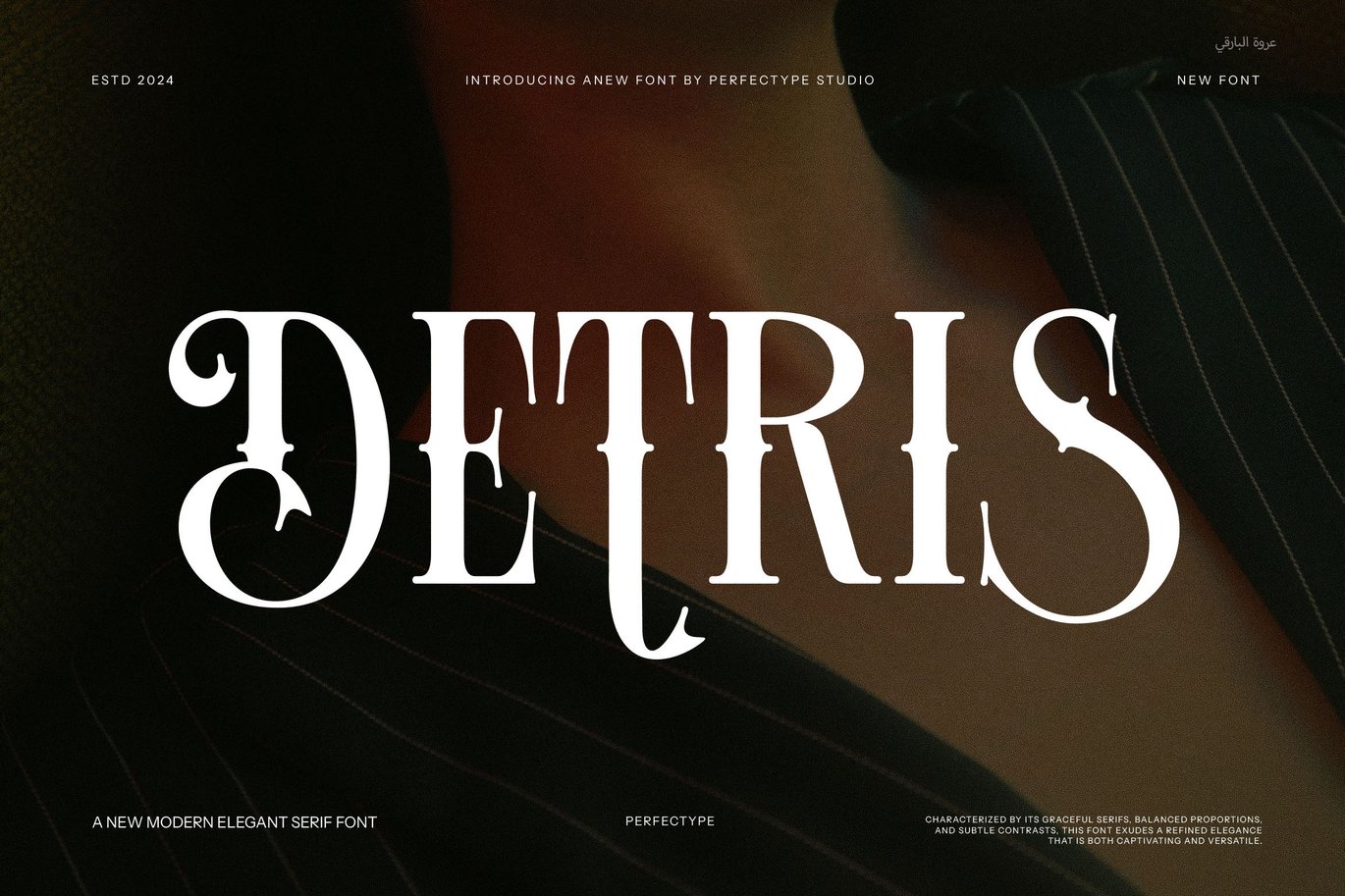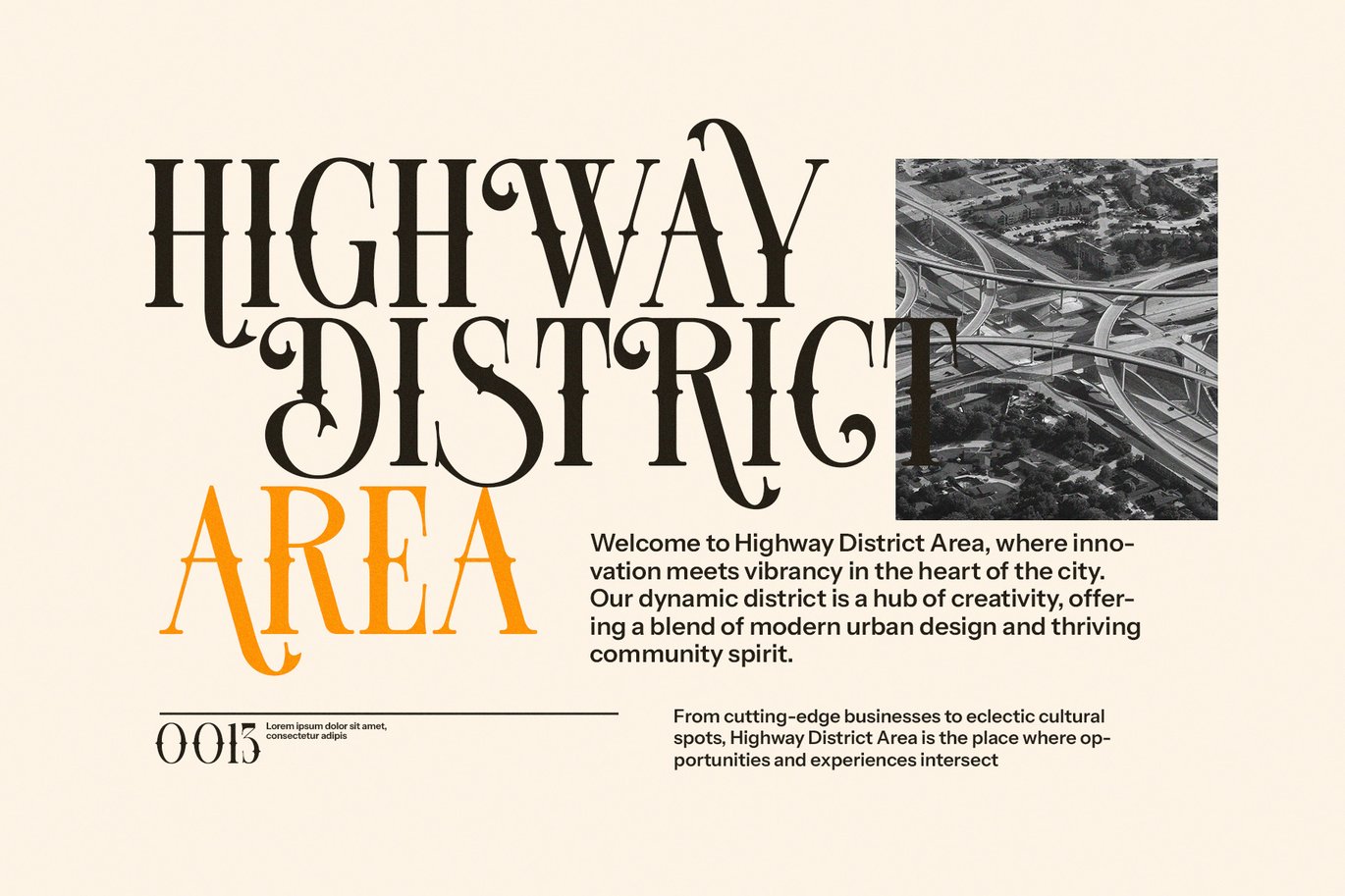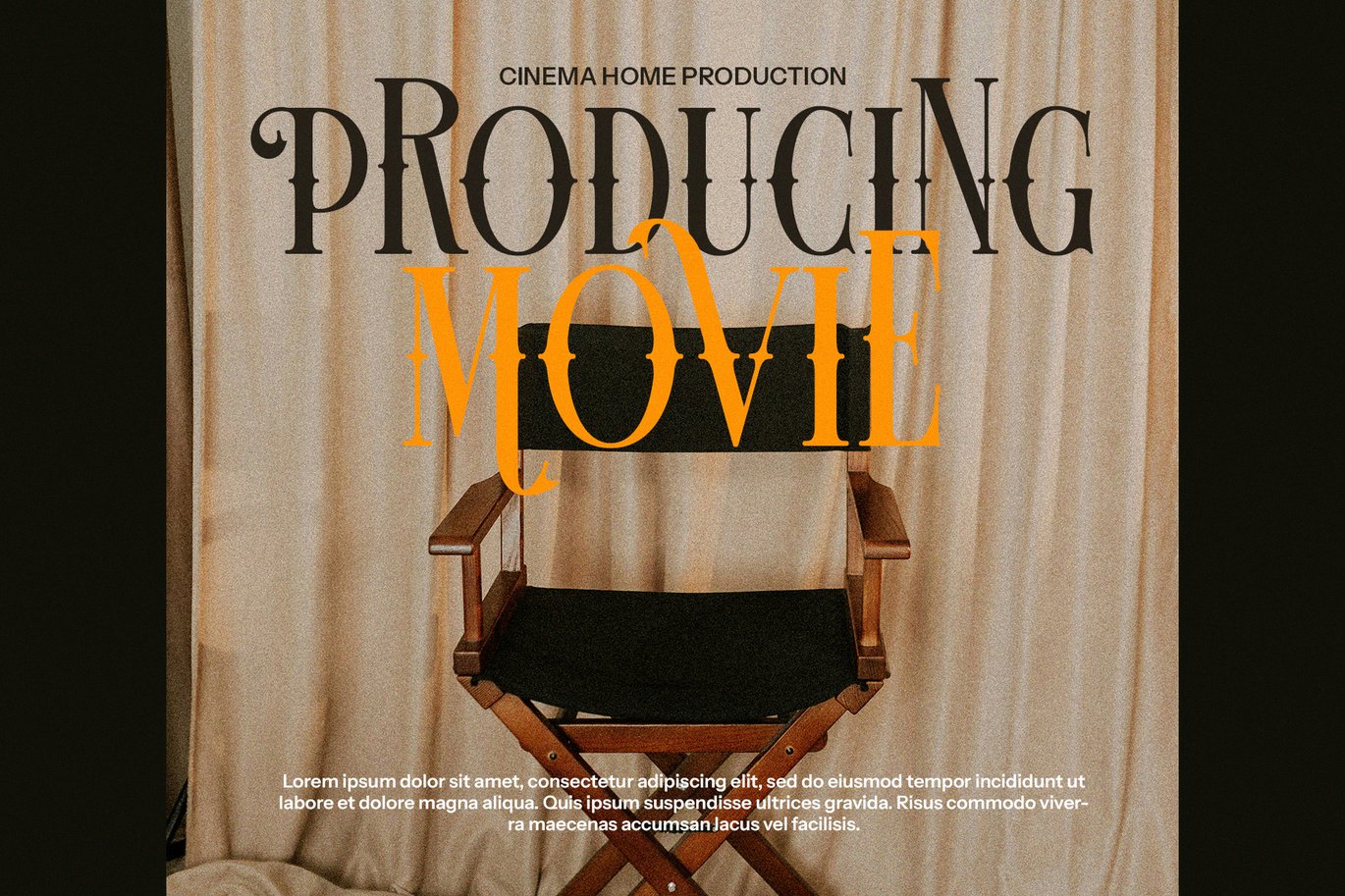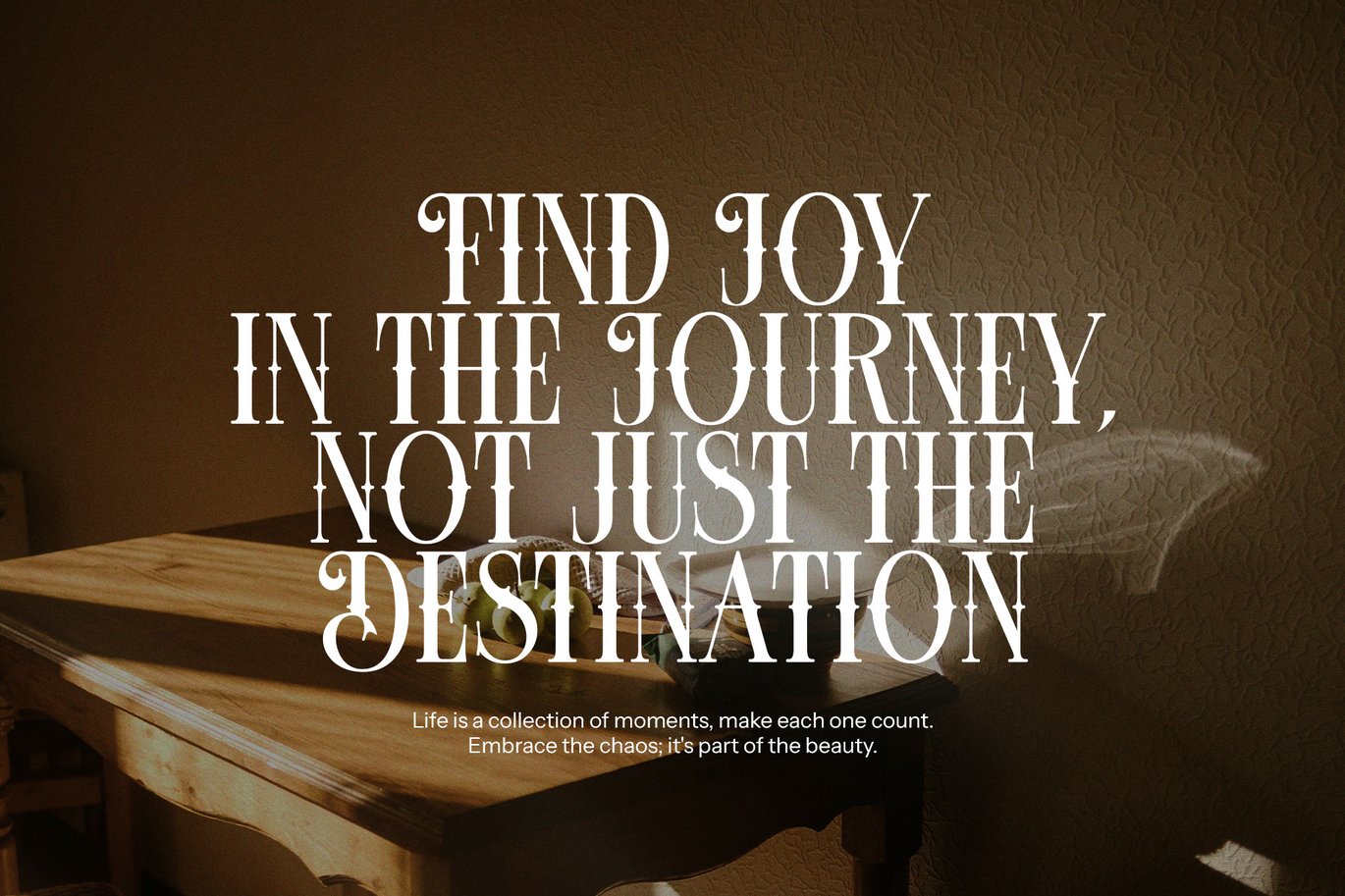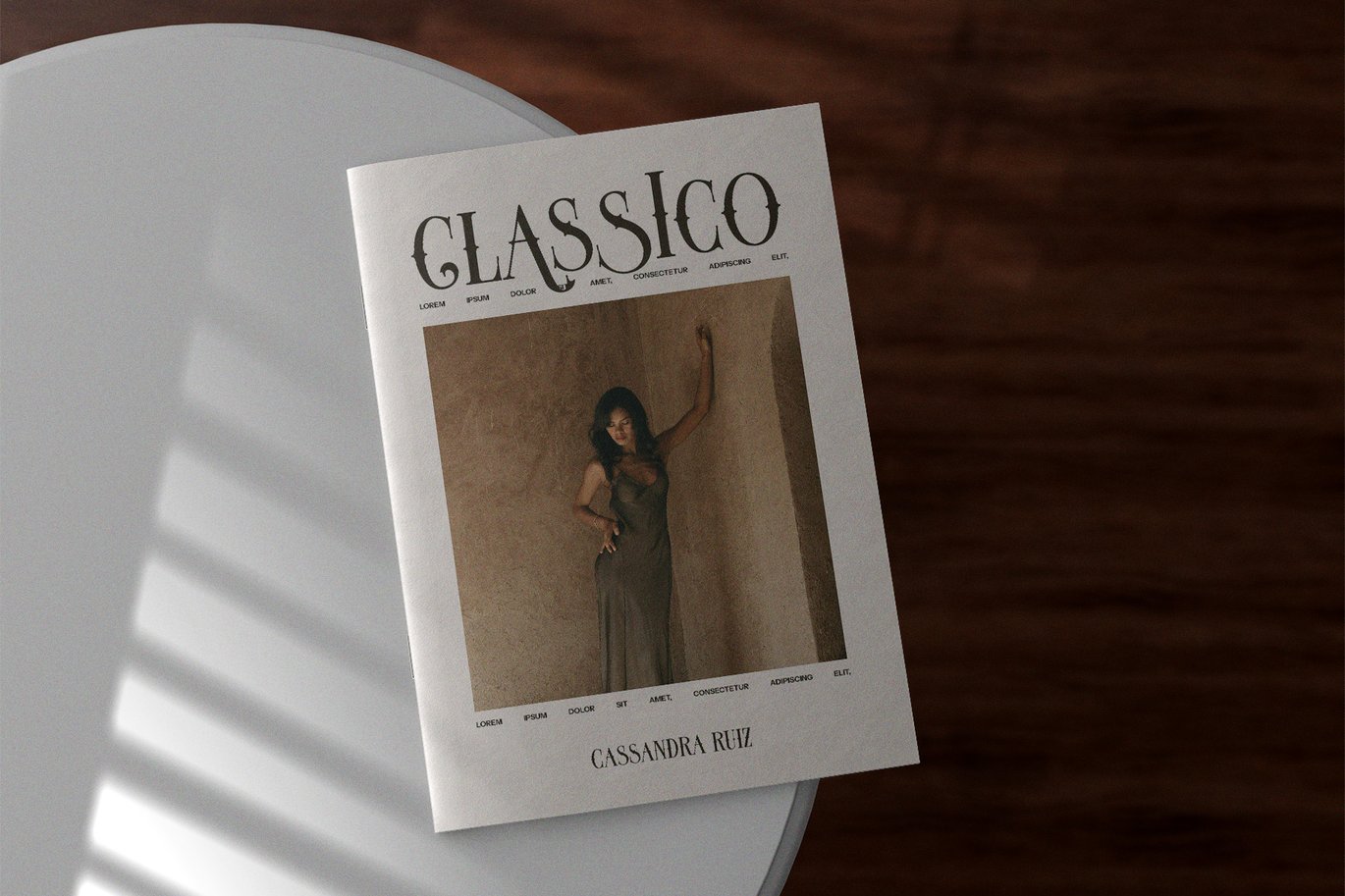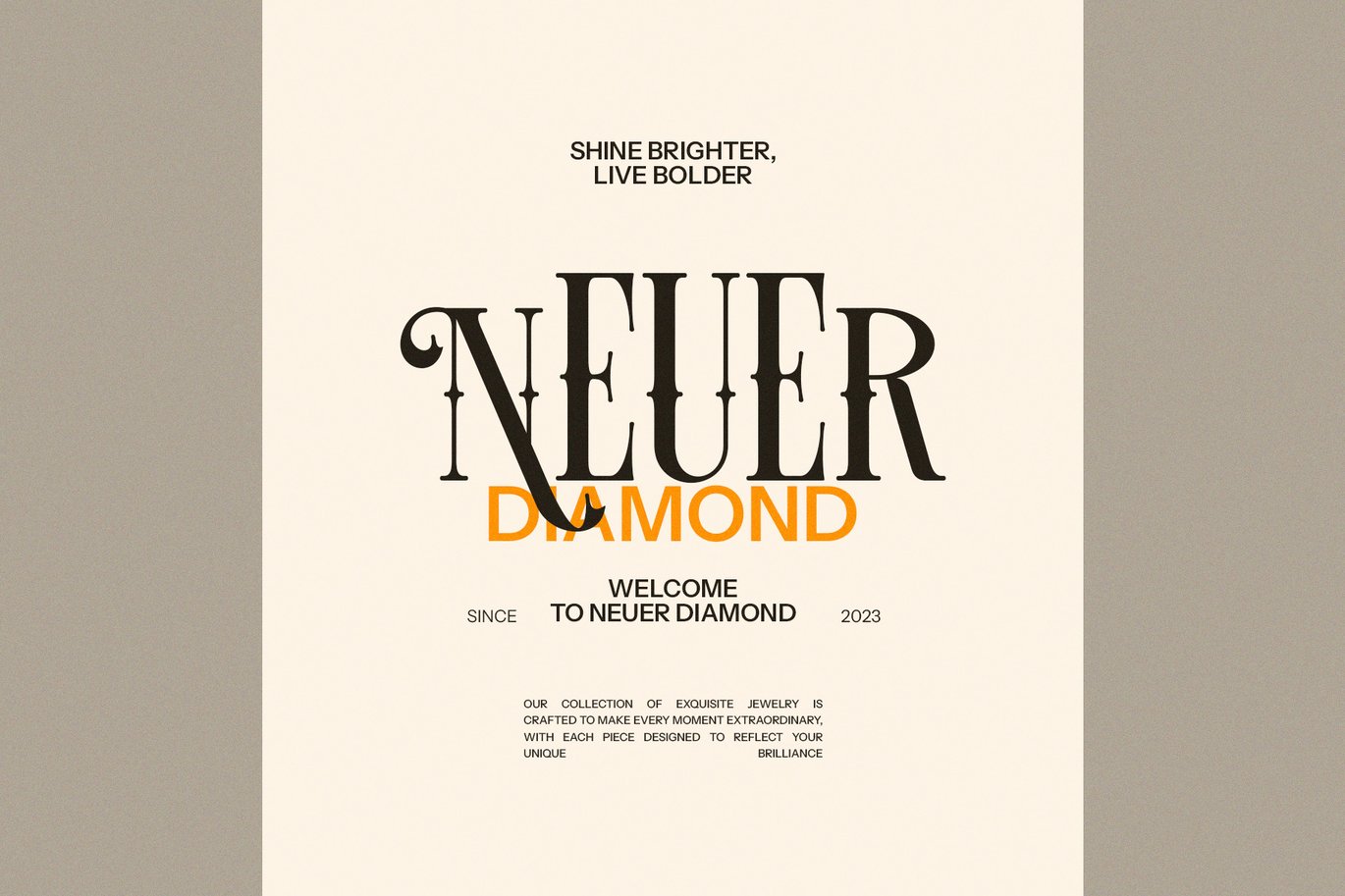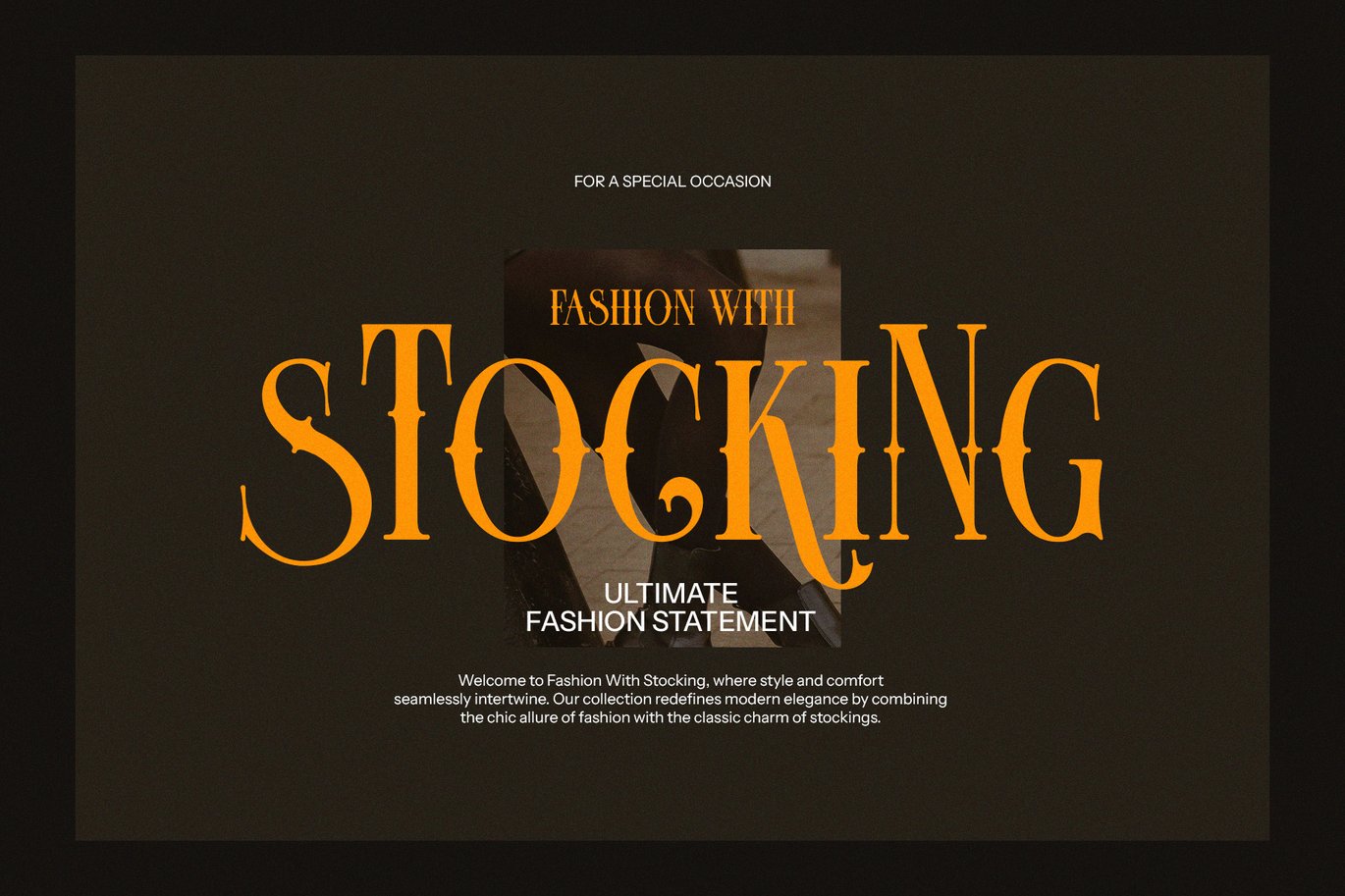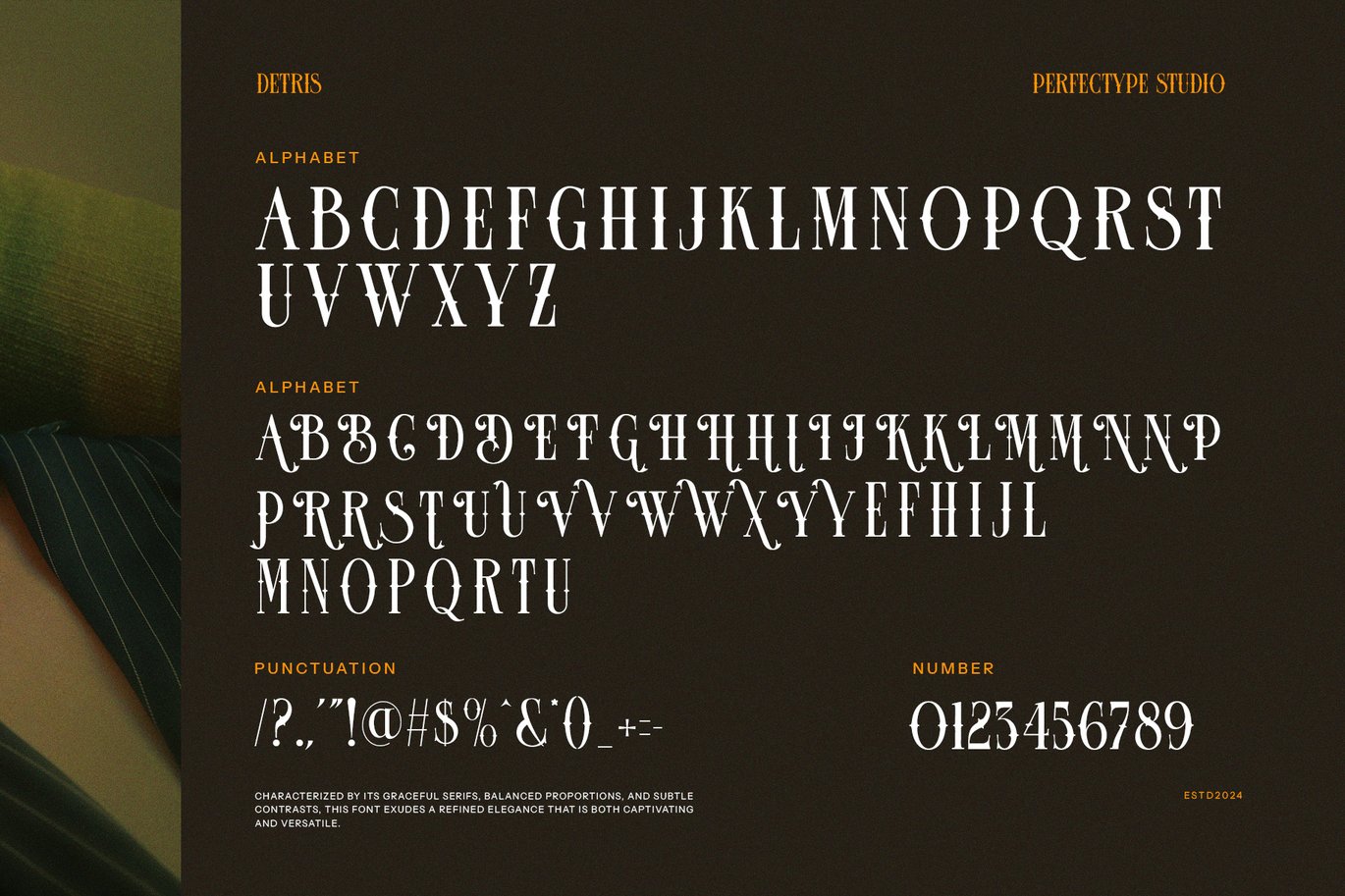
Detris Tattoo Serif Font
Detris Tatto Serif Font. this is a tattoo font that has a strong, vintage theme. You can use this font for various needs such as logos, branding, tattoos, and others